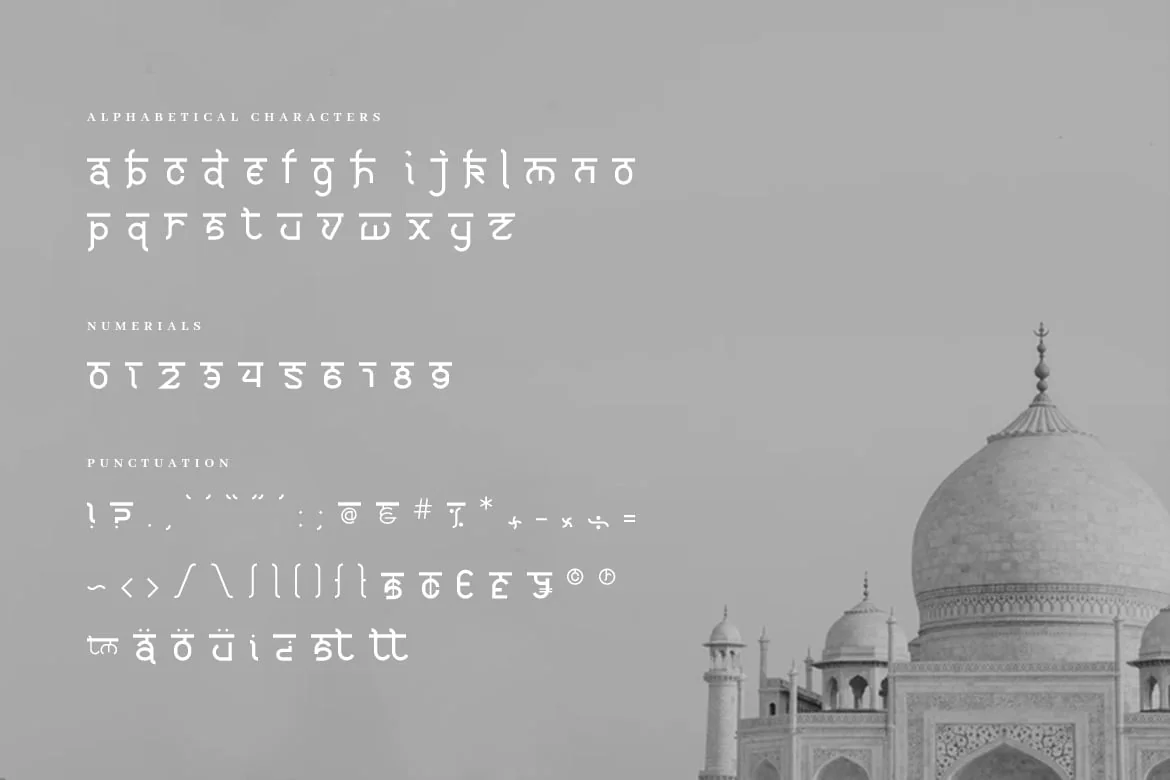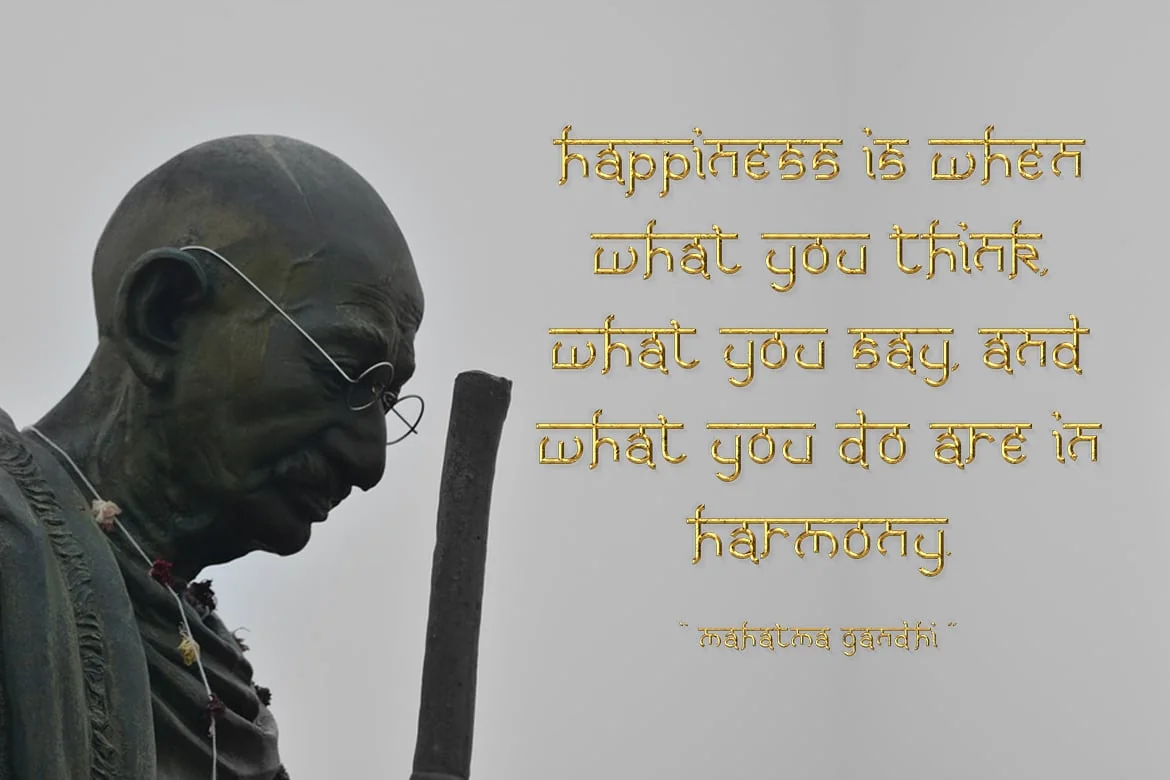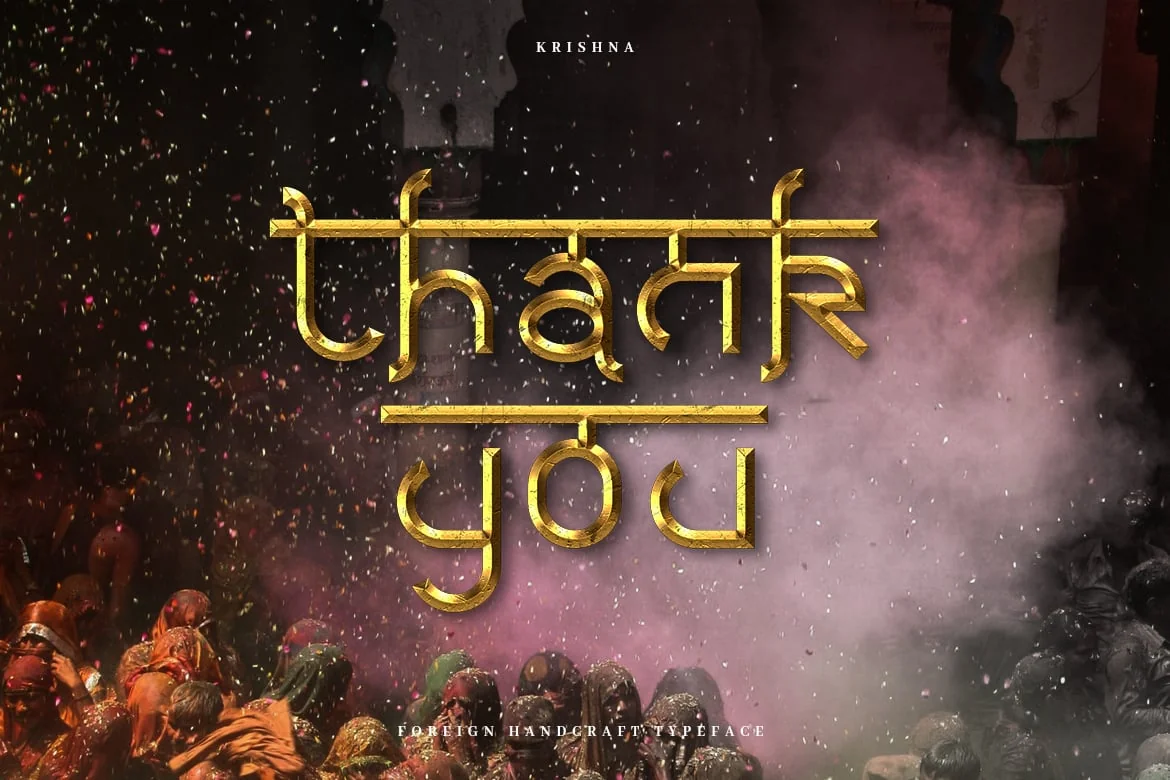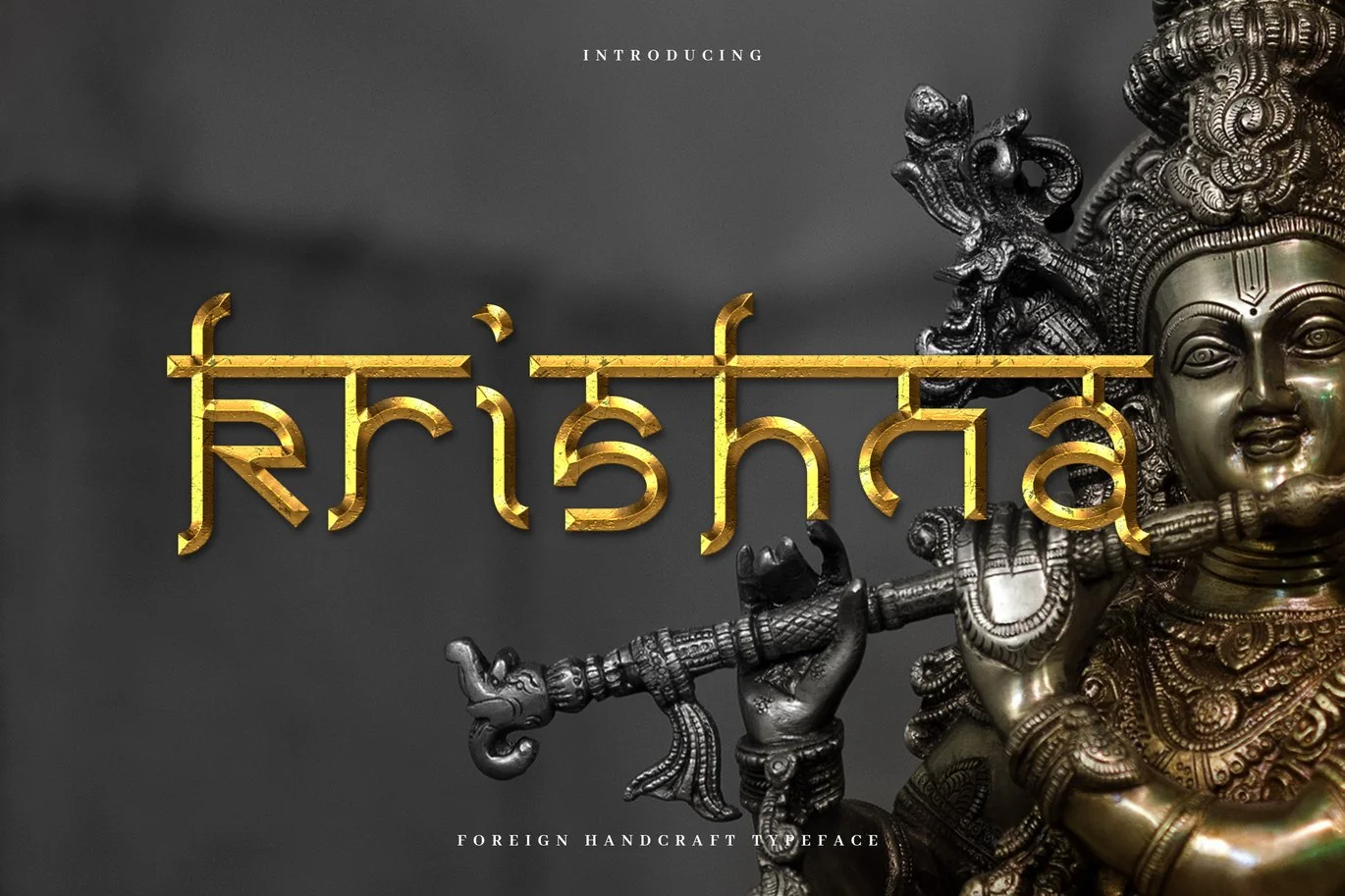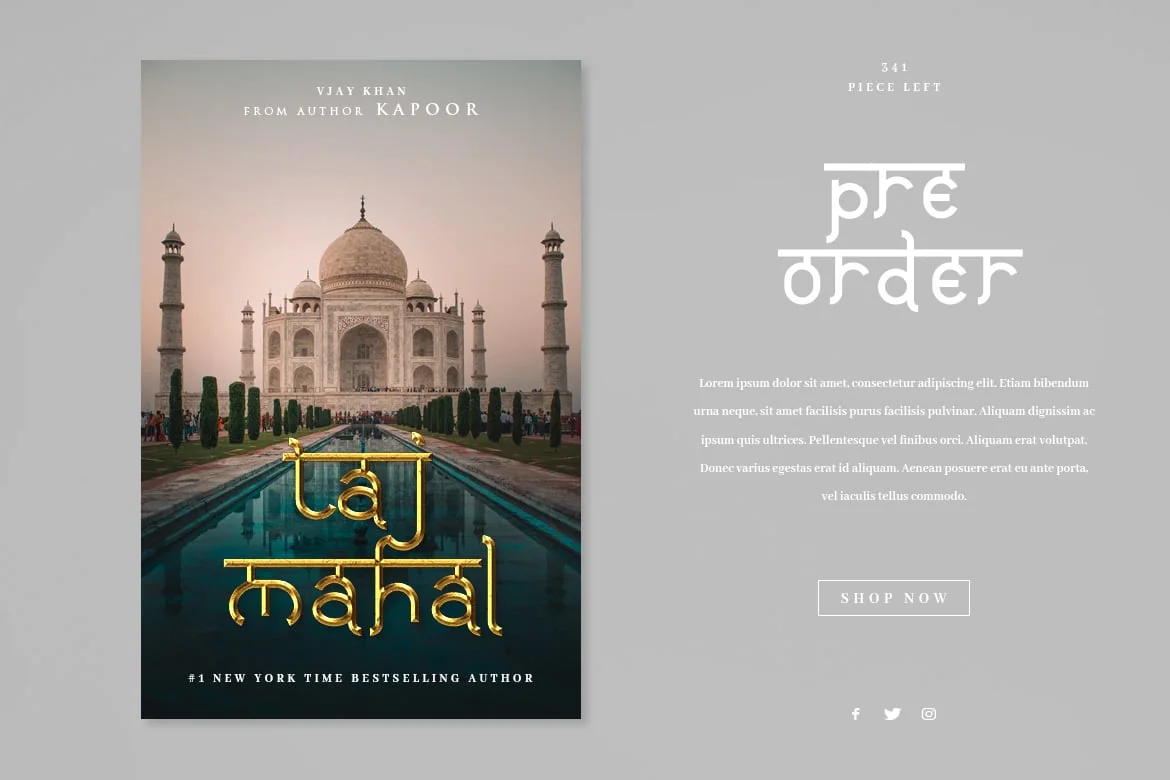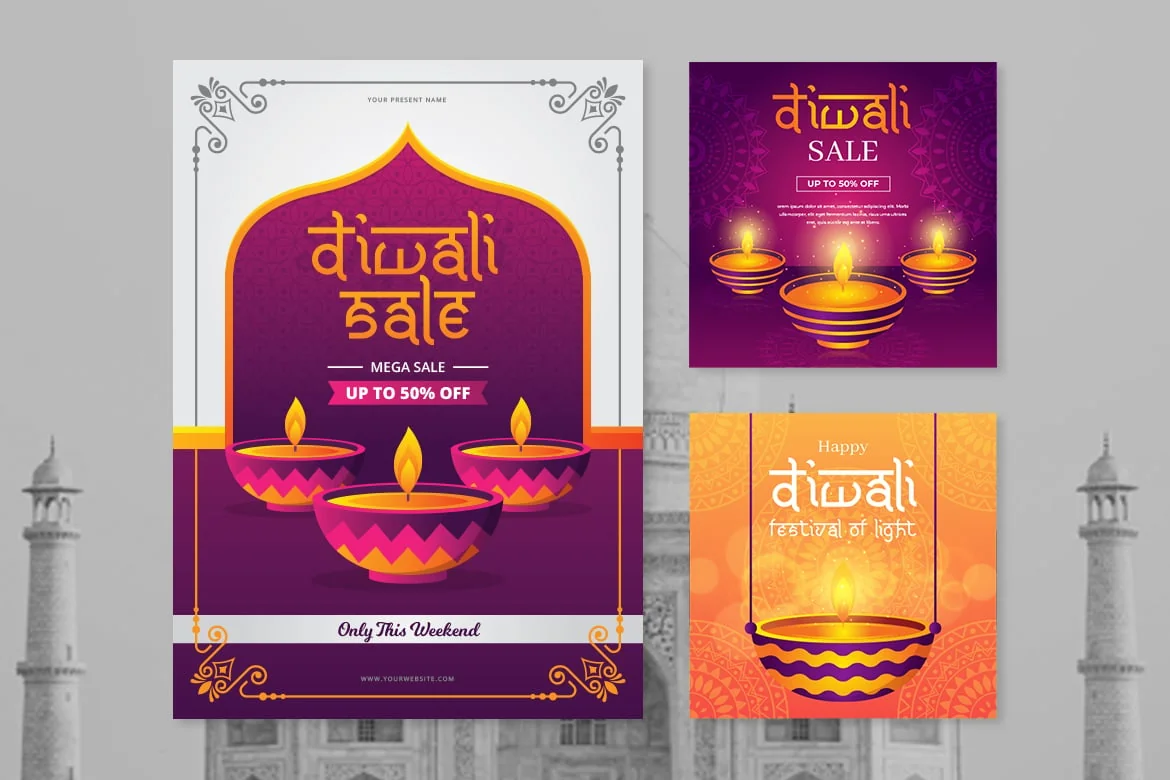
Krishna – Authentic Indian Typeface
Introducing Krishna font. Are you looking for a bold and solid display font that has authentic india traditional feeling? We can help! Try to download our krishna font. The font is suitable to use for many occasion such as event, traveling, poetry, movie title, book title, brand identity, and many more. We provide you with solid version 🙂